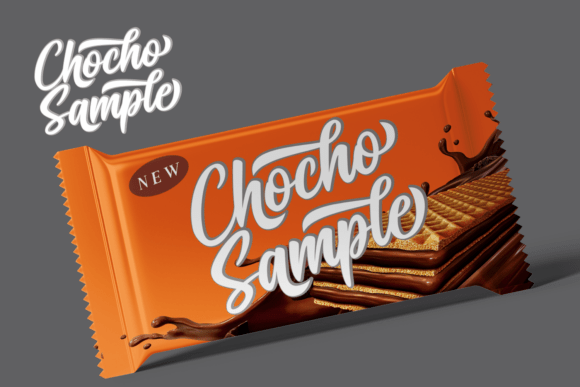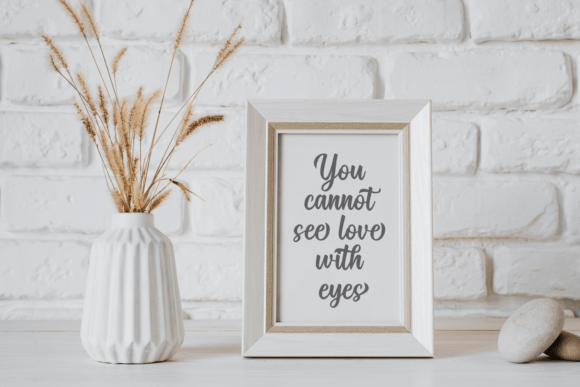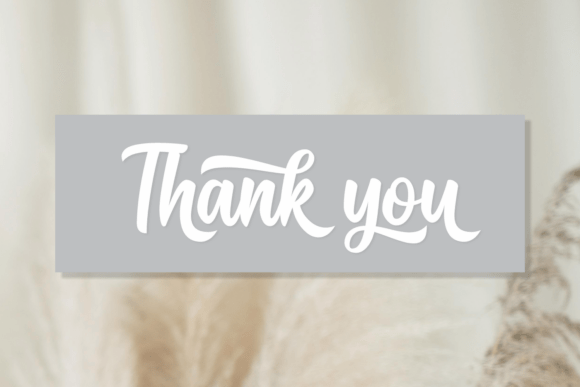
Introduction to Skayla Font
Skayla is a bold and confident script calligraphy font that balances modern style with smooth readability.
It’s a perfect fit for logos, product packaging, fashion branding, and editorial design with flair .
Why Choose Skayla Font?